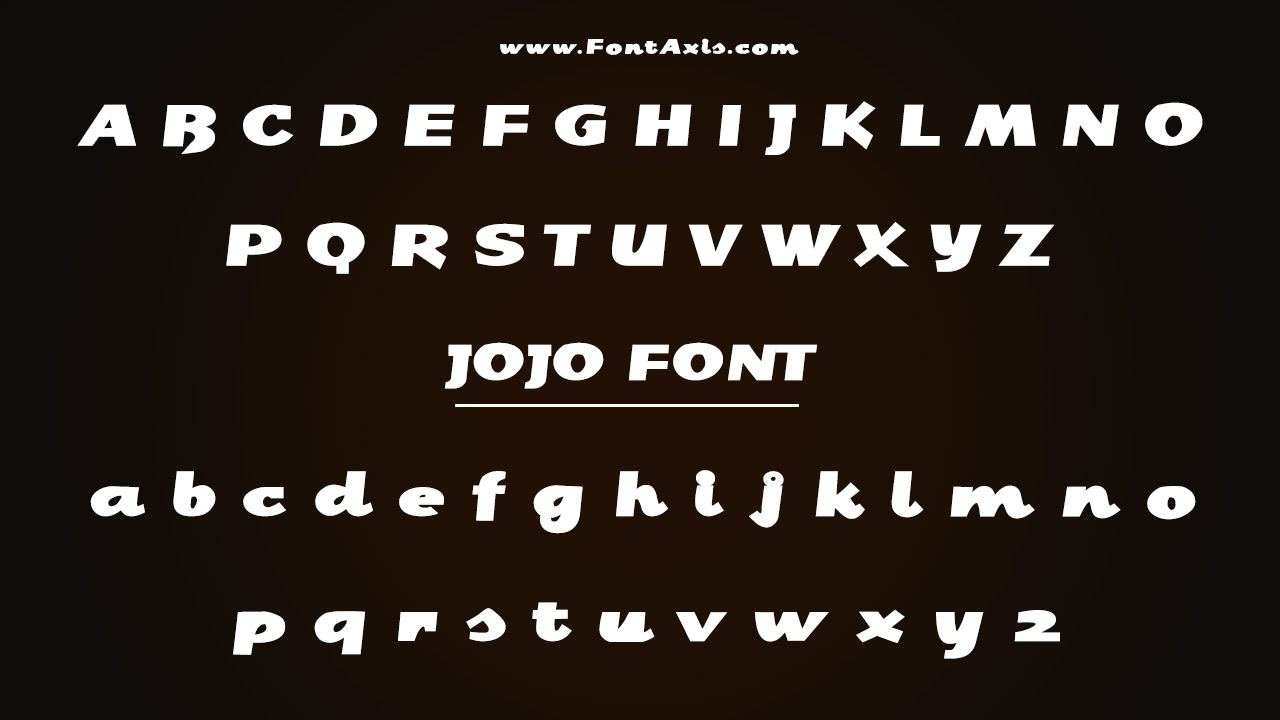
The Jojo Font is inspired by the distinctive typography of the popular anime and manga series JoJo’s Bizarre Adventure. Created by Hirohiko Araki, the series is known for its eccentric characters, dramatic storytelling, and unique artistic style. The font reflects the series’ bold and flamboyant essence, making it a favorite among fans and designers.
| Style | Display, Art Nouveau-Inspired |
| Type | Sans-Serif, Decorative |
With its extensive character set and customizable features, Jojo Font offers a unique blend of nostalgia and versatility for personal and professional use. Jojo Font includes a complete character set of over 430 glyphs, including:
Jojo Font is a vintage-inspired display typeface combining playful charm and elegant design. Influenced by Art Nouveau styles and revitalized for modern creativity, this font is perfect for various projects, including posters, book covers, logos, and advertisements.
- Posters: Eye-catching headlines for creative events.
- Logos: Ideal for boutique stores, bakeries, and cosmetics branding.
- Book Covers: Adds a whimsical and artistic touch.
- Advertisements: Perfect for banners, flyers, and promotions.
- Websites: For elegant titles and decorative accents.
- School Projects: Attractive font for presentations and assignments.
Jojo Font is a versatile, vintage-inspired typeface suitable for various creative applications. Its charm, inspired by Art Nouveau and JoJo’s Bizarre Adventure, makes it an exceptional choice for posters, logos, and book covers. With wide language support and customization options, Jojo Font is perfect for designers seeking a unique and playful aesthetic.
3.What Are The Limitations Of Jojo Font In Digital Design?
Jojo Font’s decorative style makes it difficult to read in smaller sizes, limiting its use in detailed text or body copy. It may also lack multilingual support for non-Latin characters. Additionally, its bold and ornate design may clash with minimalist layouts, making it more suitable for thematic or dramatic projects.
4.Is Jojo Font Suitable For Web Design?
Yes, Jojo Font works well for web design when used as headings, banners, or visual accents. However, its intricate details and heavy appearance may not suit minimalist or responsive layouts. It should be used sparingly to avoid overwhelming the design while ensuring it enhances the JoJo-themed aesthetic.
7.What Are The Color Options Available In Jojo Font?
Jojo Font doesn’t come with preset colors but works well with bold, dramatic hues applied in design software. Commonly used colors include gold, black, purple, and red, reflecting the JoJo universe’s iconic tones. Gradient and metallic effects can enhance its flair, making it even more eye-catching.
8.Does Jojo Font Support Multiple Languages?
Yes, it supports Latin, Cyrillic, and Unicode characters, including Chinese and Japanese.
9.What Are The Best Uses For Jojo Font?
It’s ideal for posters, book covers, logos, and creative branding projects.